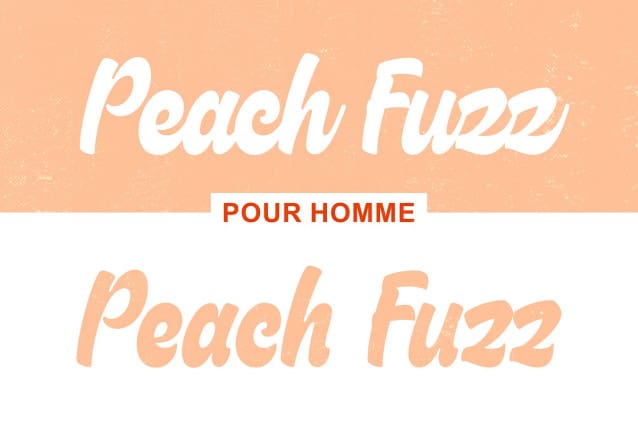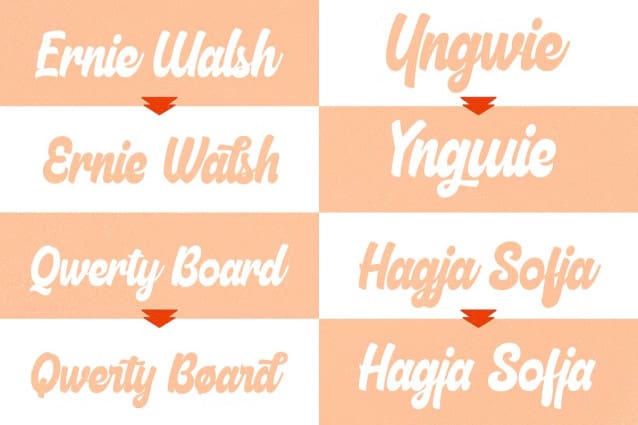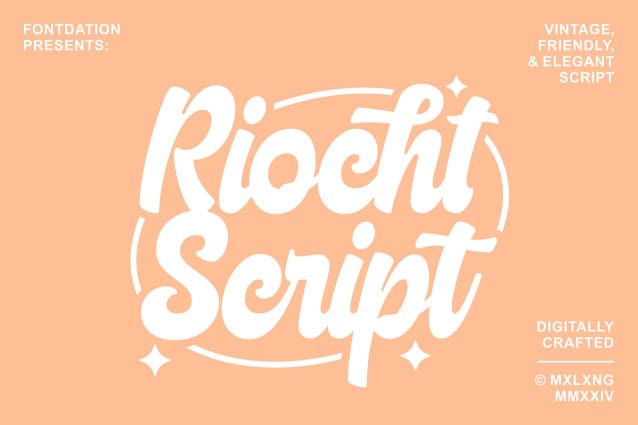
Riocht Script Font
Riocht Script Font, our brand new playful yet vintage script font. Inspired by letters/signpaintings that are used in classic advertisement/product packaging, tweaked with high.attention to details to match todays designing standard. Available in tail-less version (alternate characters) too, so you can play more with the letter variations. Suits best for food/beverage packagings, logo/branding, quote/poster/apparel designs, headlines, social media contents, etc.